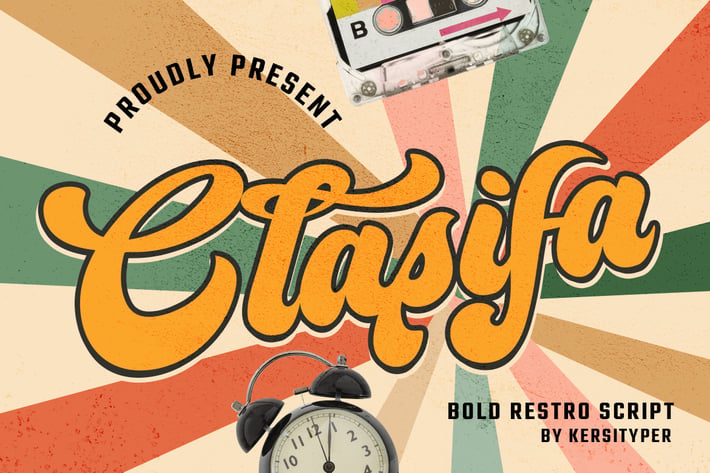
Clasifa Font
Introducing Clasifa font a retro bold script style typeface. Inspired by retro typography and lettering in the '70s and '80s combined with bold typography style. This Font is perfect for vintage and retro design, badges, logos, posters, branding, packaging, signage, book cover and so much more!
Multilingual support:
Afrikaans, Albanian, Catalan, Danish, Dutch, English, Estonian, French, Finnish, German, Icelandic, Indonesian, Italian, Malay, Norwegian, Portuguese, Spanish, Swedish, Zulu, and many more.